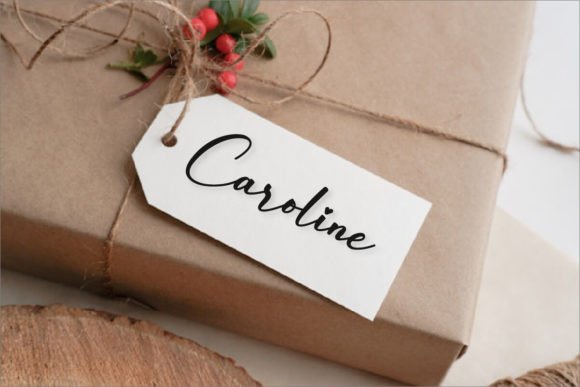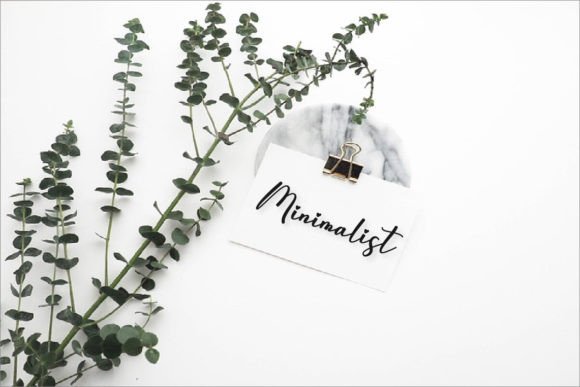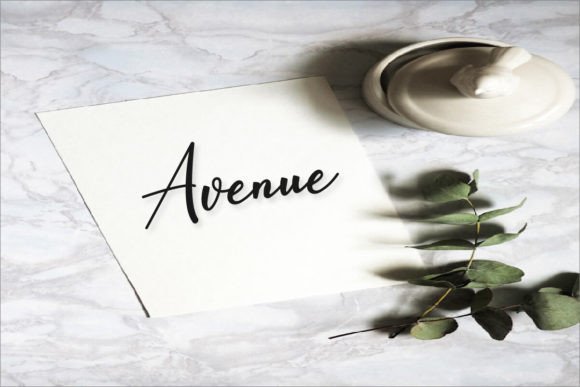
Introduction to Season Font
Season is a delicate, elegant, and flowing handwritten font.
It has beautiful and well-balanced characters and as a result, it matches a wide pool of designs .
Key Features of Season Font
Why Choose Season Font?